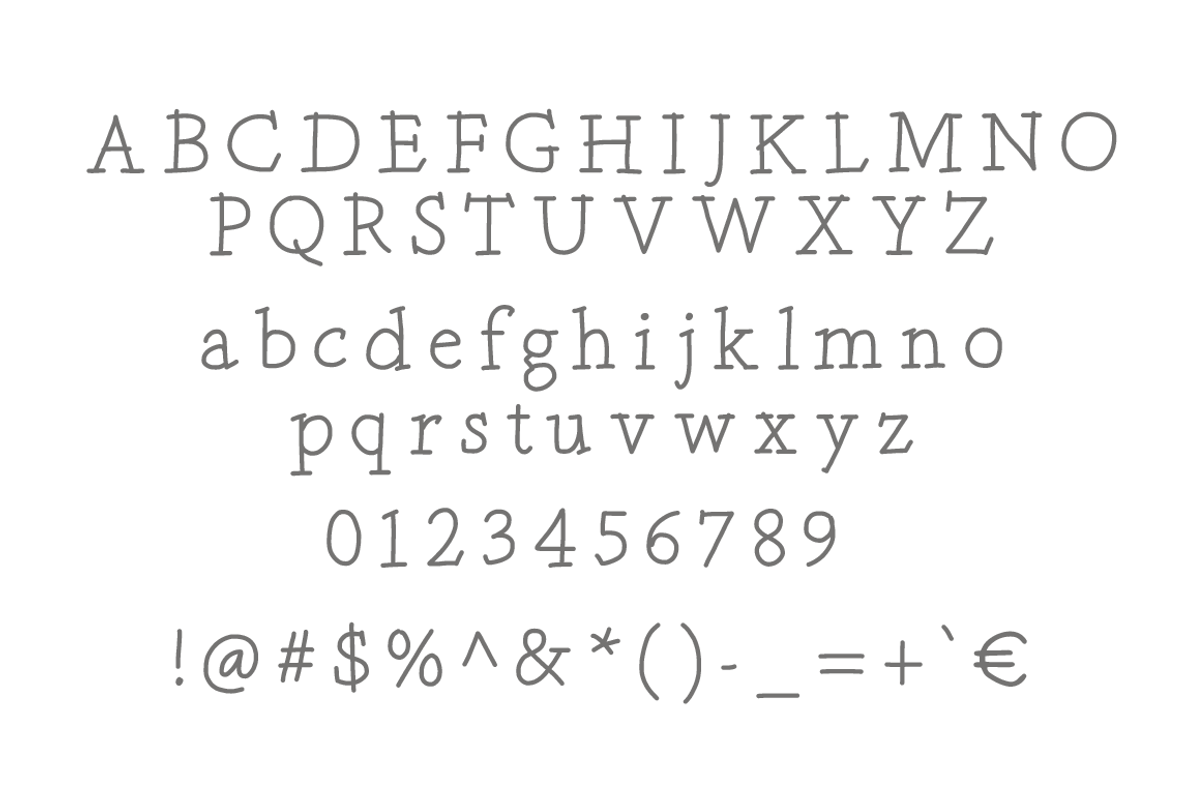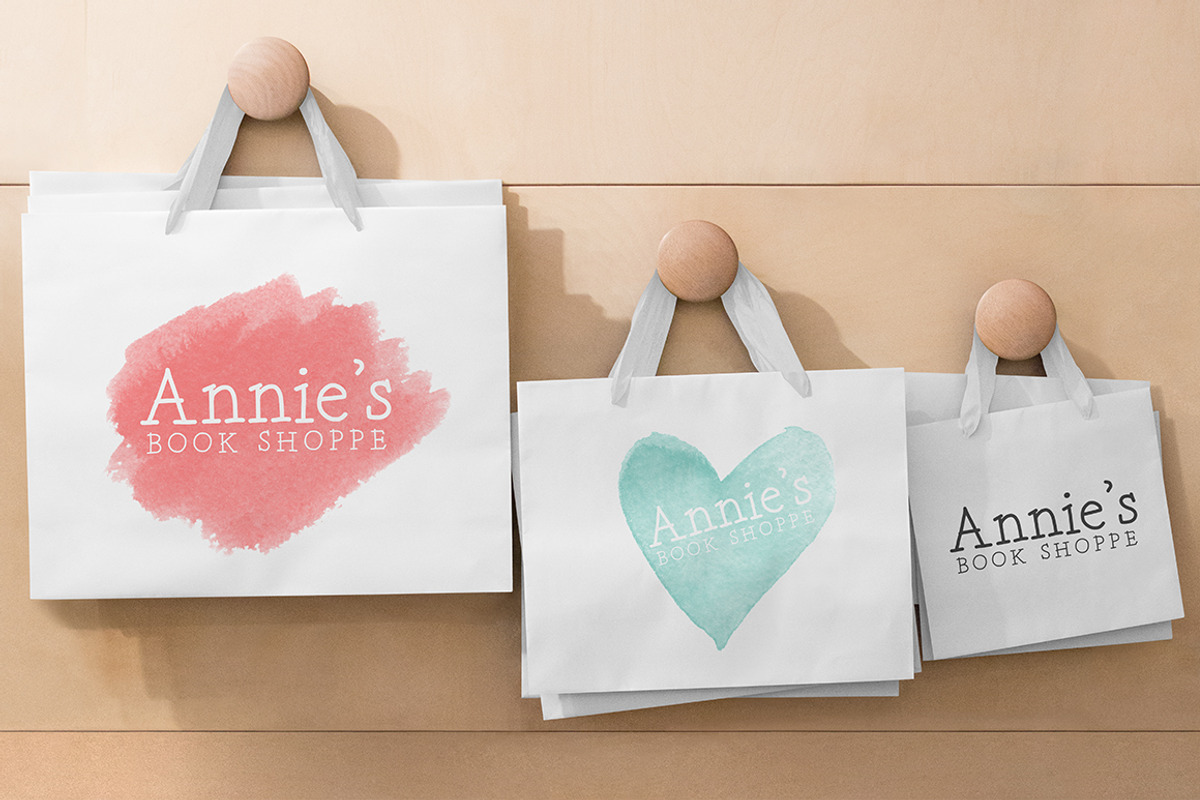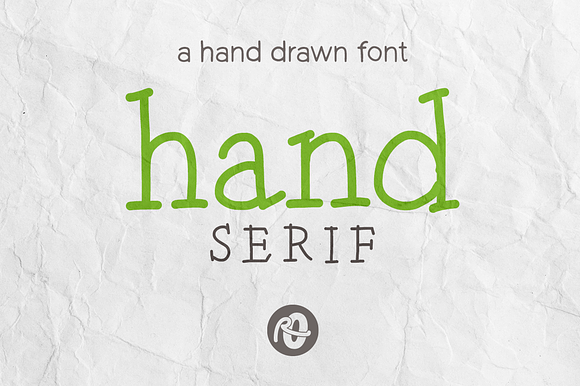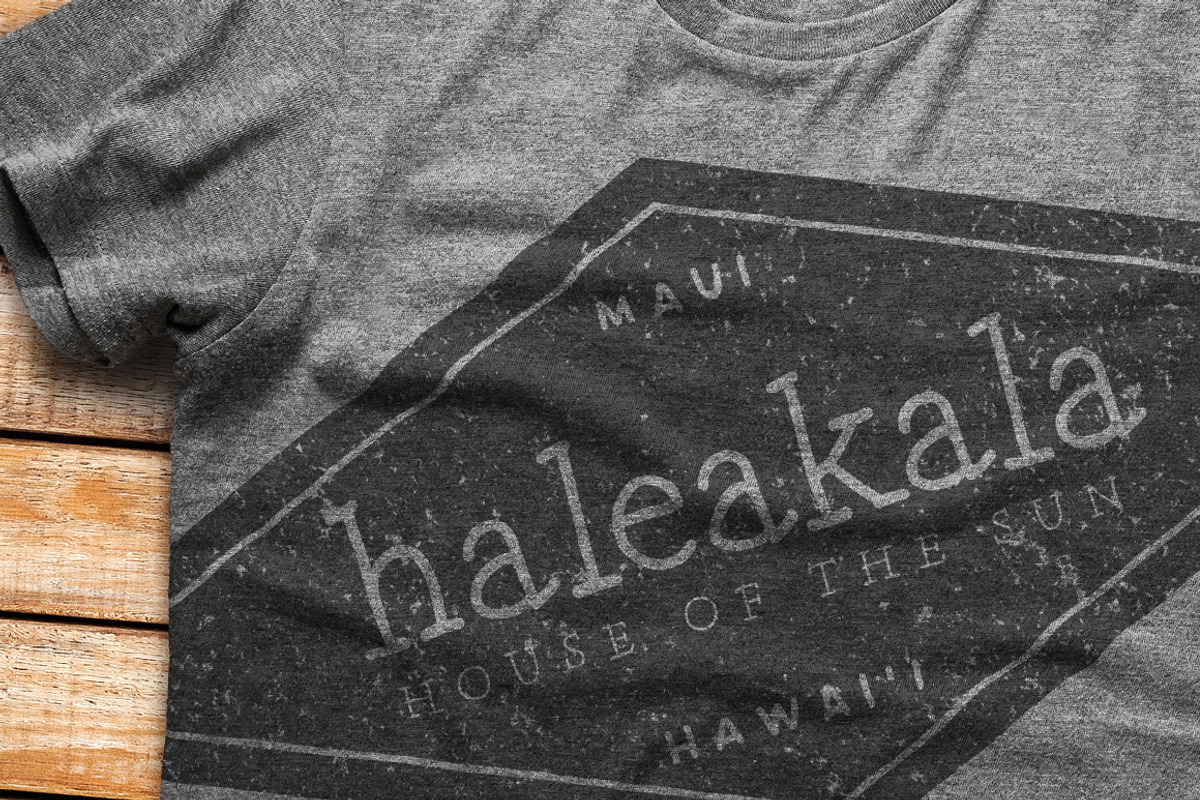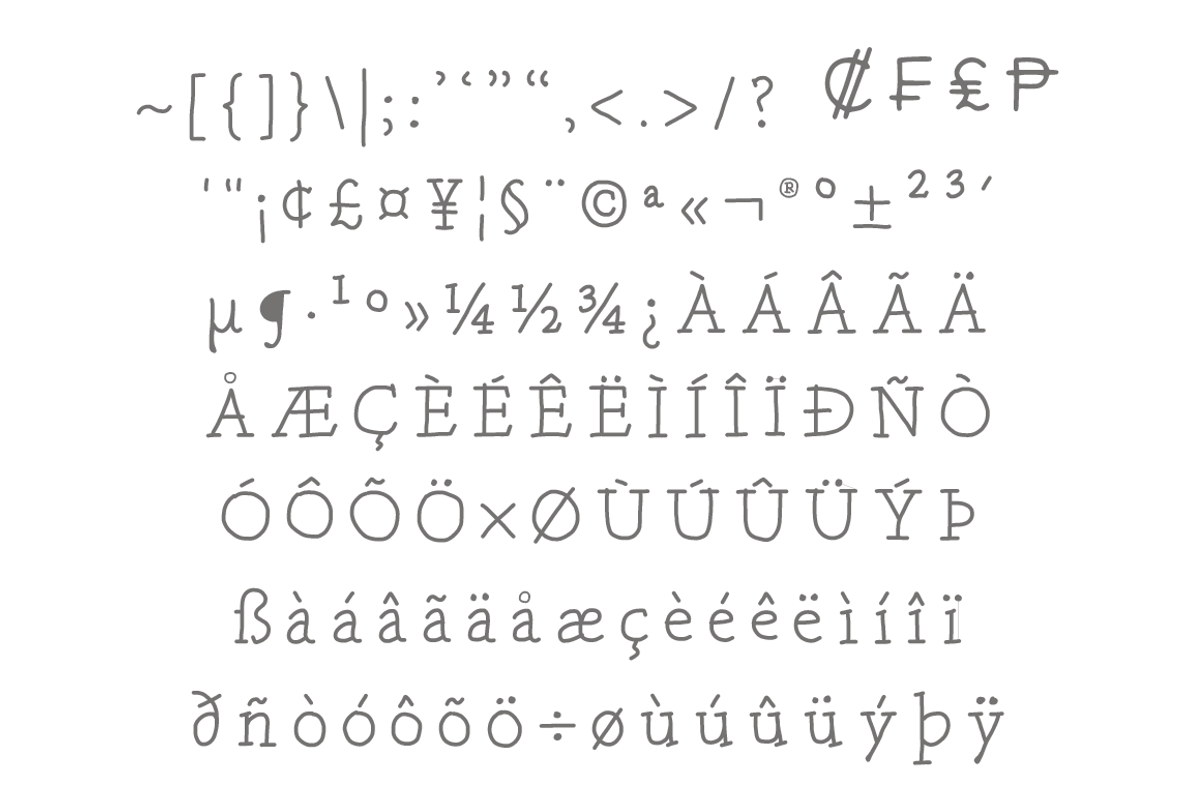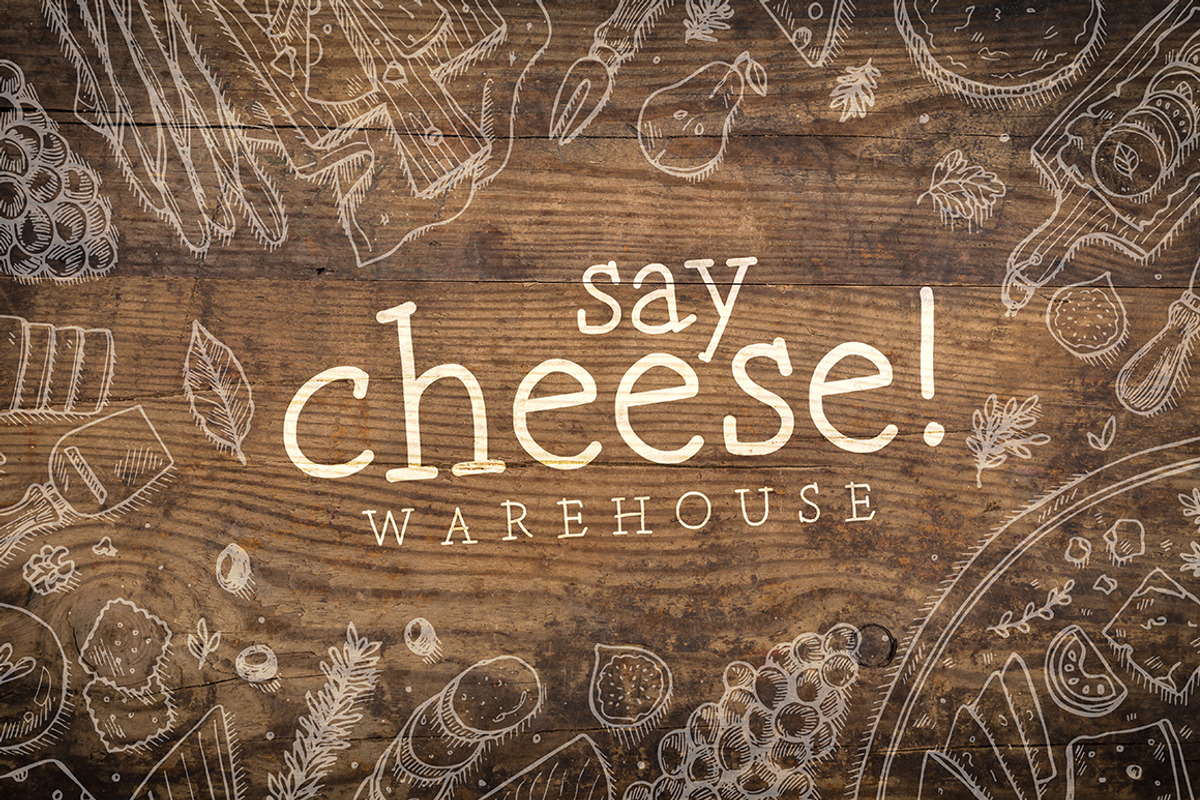
Hand Serif: a hand drawn font
Hand Serif is a hand drawn font with serifs - inspired by the transitional style. It’s fun, with structure. Its look and function work well for branding, packaging & editorial design.